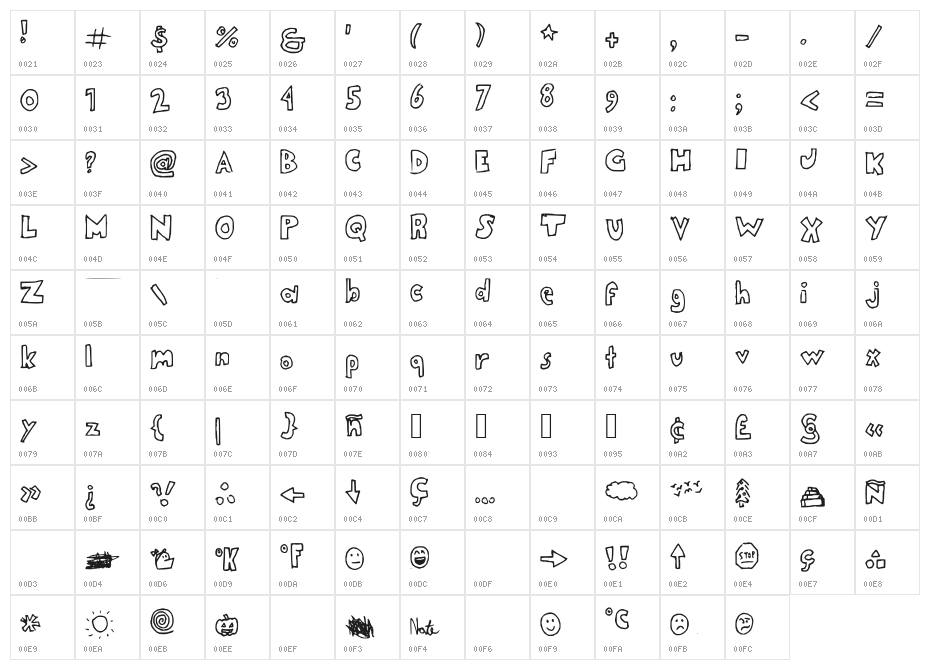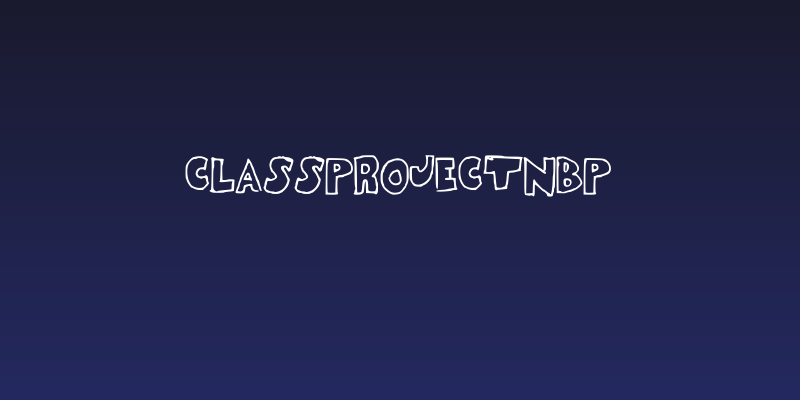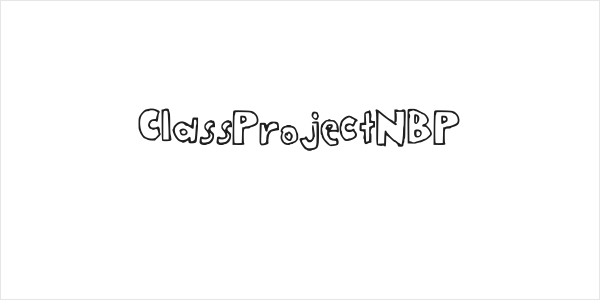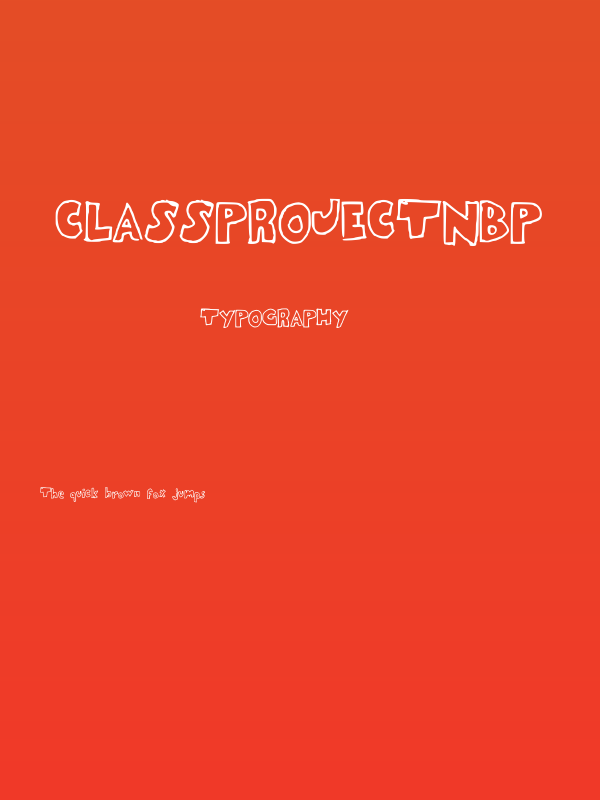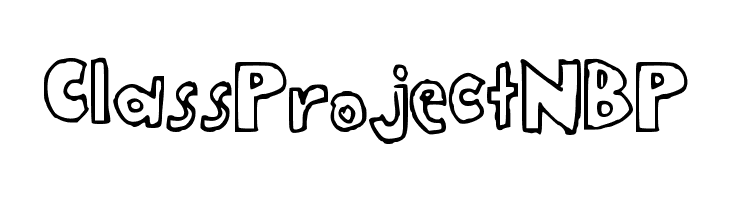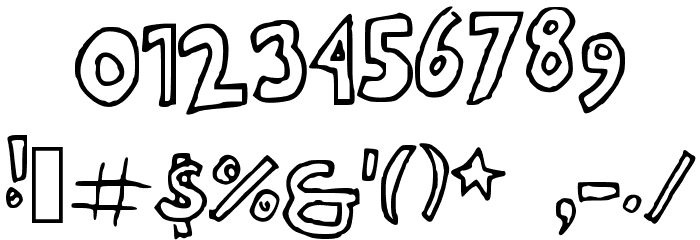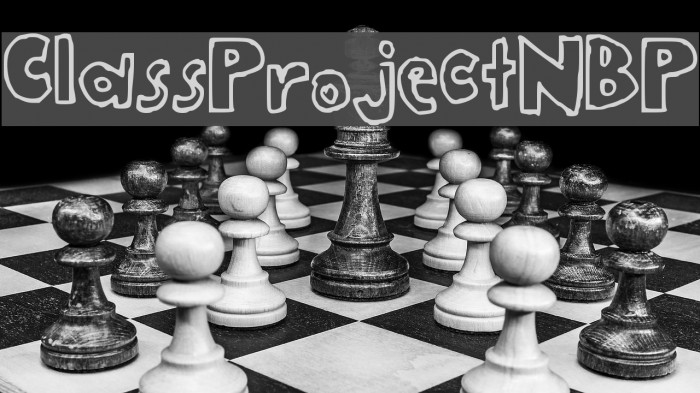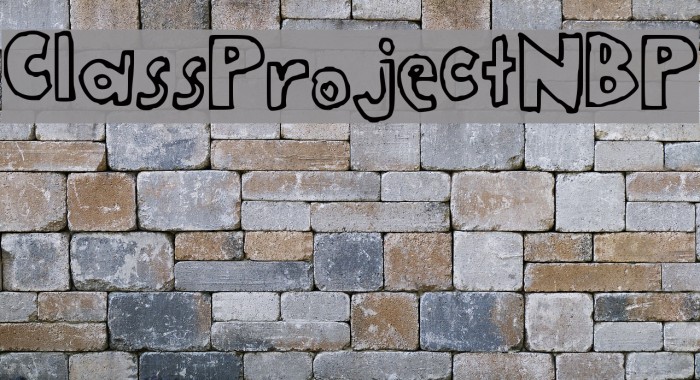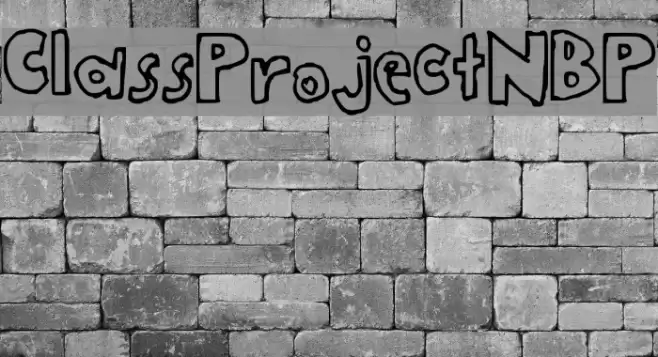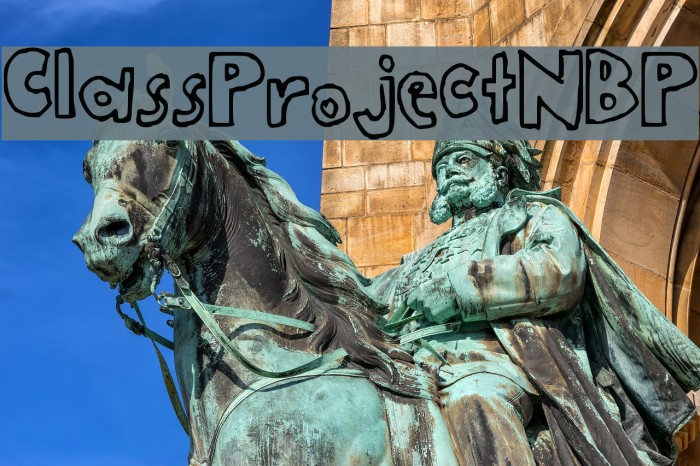
ClassProjectNBP Font
ClassProjectNBP Description
This playful and whimsical font features bold, hand-drawn characters with a cartoonish style. Each letter is outlined with a thick, uneven stroke, giving it a casual and informal appearance. The uppercase and lowercase letters maintain a consistent style, with rounded edges and a slightly irregular shape that adds to the font's charm. The numbers and special characters are designed to match the playful aesthetic, making them suitable for creative and fun projects. The overall look is reminiscent of doodles or children's handwriting, making it ideal for projects that require a lighthearted and approachable feel.
| Proposed Projects | Ideal for children's books, comic strips, playful branding, and casual invitations. |